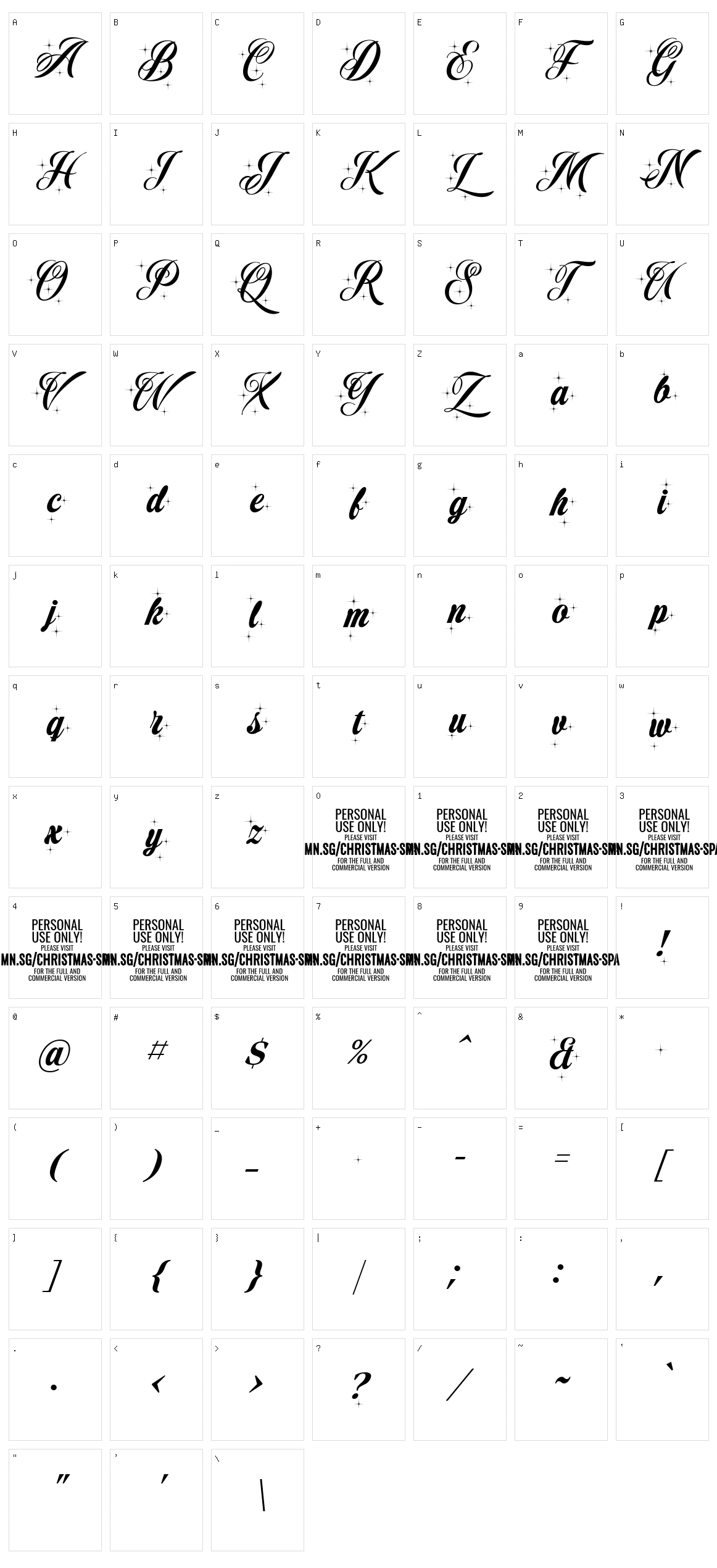
Christmas Sparkle is a decorative Christmas font.
This original typeface, drawn and created by Måns Grebäck, brings a spark to any Christmas themed project.
It contains stylistic and contextual alternates, and supports all European Latin-based languages.
Use * and + for stars!